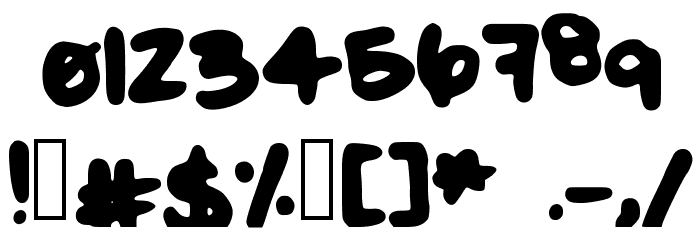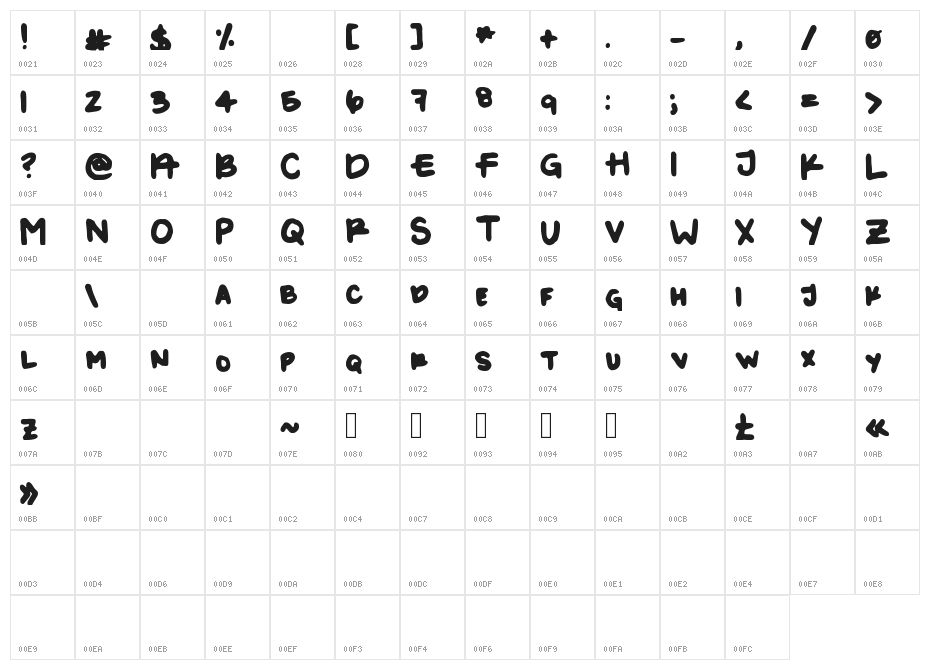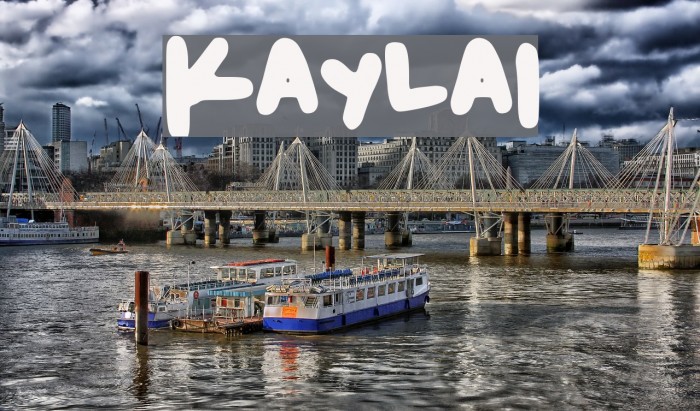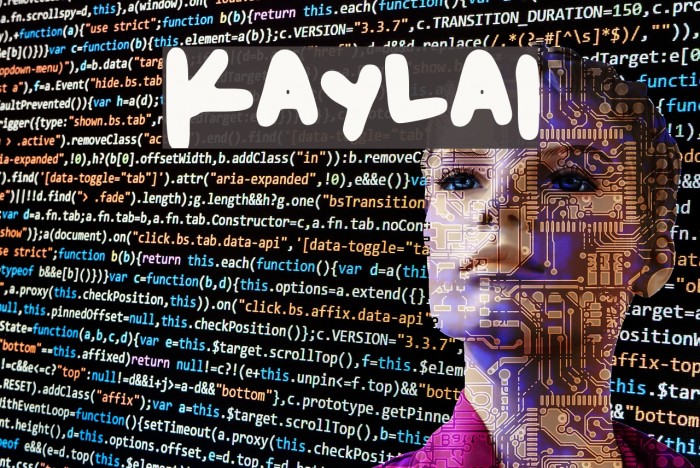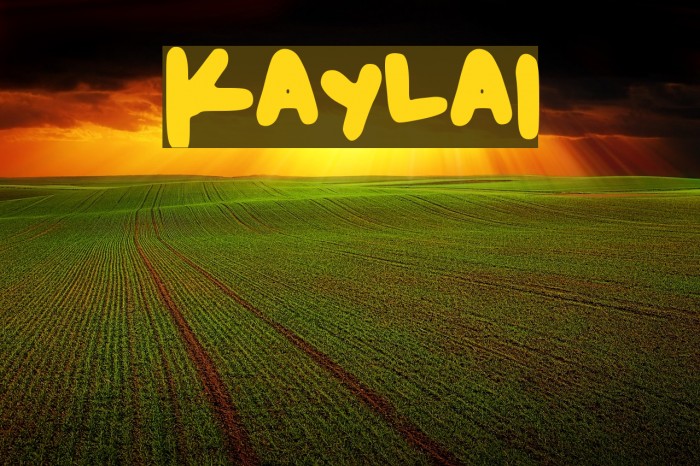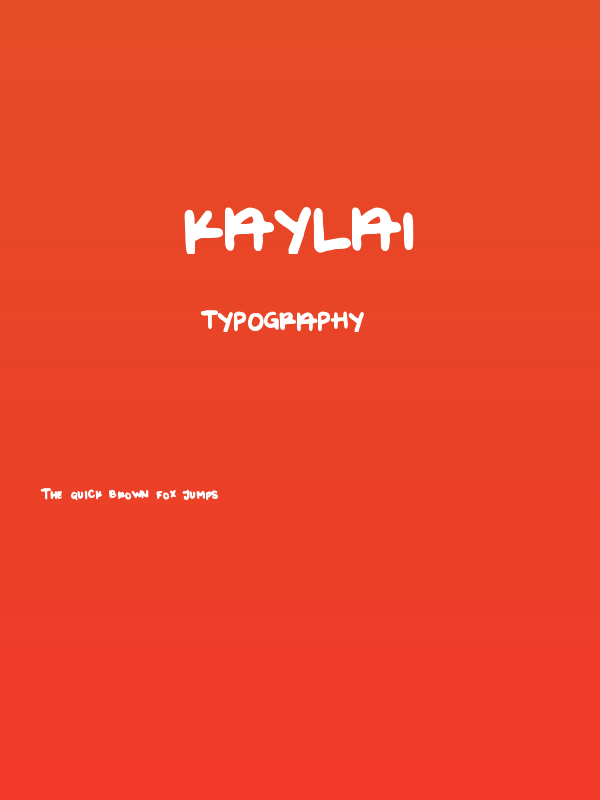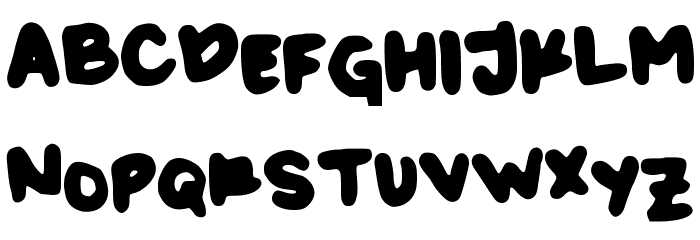
Kayla1 Font
Kayla1 Description
This playful and bold font features thick, rounded strokes that give it a friendly and approachable appearance. The characters are slightly irregular, adding a hand-drawn, whimsical feel. The uppercase and lowercase letters maintain a consistent style, with a noticeable emphasis on curves and rounded edges. The numbers and special characters follow the same design principles, ensuring a cohesive look across all glyphs. This font's unique style makes it stand out, making it ideal for projects that require a touch of fun and creativity.
| Proposed Projects | Great for children's books, playful branding, posters, and social media graphics. |